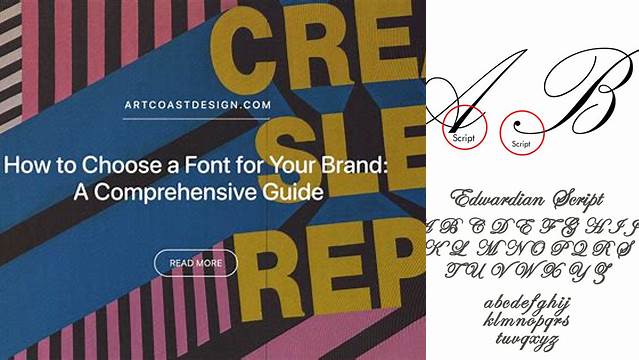
Fonts Scripts: Your Ultimate Guide To Elegant Typography
Choosing the right fonts scripts is crucial for creating visually appealing and engaging content. Whether you're designing a website, crafting marketing materials, or simply looking to enhance your personal projects, the right font can make all the difference. In this comprehensive guide, we'll delve into the world of fonts scripts, exploring their history, different styles, best practices for usage, and how to select the perfect font for your needs.
Understanding Fonts Scripts
Fonts scripts, also known as script fonts, are a type of typeface that mimic the flowing strokes of handwriting. These fonts often evoke a sense of elegance, sophistication, and personal touch. They can be incredibly versatile, suitable for a wide range of applications from wedding invitations to branding materials. However, understanding the nuances of script fonts is essential to using them effectively.
A Brief History of Script Fonts
The history of fonts scripts dates back to the origins of handwriting itself. Early forms of script fonts were developed to replicate the appearance of formal calligraphy. As printing technology evolved, so did the ways in which script fonts were designed and utilized. In the 18th and 19th centuries, script fonts became particularly popular for correspondence and formal documents. Today, digital typography has expanded the possibilities for script fonts, offering a vast array of styles and variations.
Types of Script Fonts
There are numerous types of fonts scripts, each with its unique characteristics and applications. Some of the most common categories include:
- Formal Scripts: These fonts closely resemble traditional calligraphy and are often used for elegant and formal occasions. Think wedding invitations, certificates, and high-end branding.
- Casual Scripts: Casual scripts have a more relaxed and informal feel. They are perfect for projects that need a touch of personality and warmth, such as greeting cards or friendly website headers.
- Brush Scripts: Brush scripts look like they were written with a paintbrush, featuring bold strokes and a textured appearance. They're great for adding an artistic flair to designs.
- Calligraphic Scripts: True to their name, these fonts mirror the art of calligraphy. They're often characterized by intricate details and a sense of timeless beauty.
- Vintage Scripts: These fonts evoke a sense of nostalgia and old-world charm. They're ideal for projects that aim to capture a retro aesthetic.
Key Characteristics of Script Fonts
Several key characteristics define fonts scripts and distinguish them from other font styles:
- Flowing Strokes: Script fonts are designed to mimic the continuous strokes of handwriting, creating a sense of fluidity and connection between letters.
- Elegant Curves: Many script fonts feature elegant curves and swashes, adding to their visual appeal.
- Varied Thickness: The thickness of the strokes can vary, creating a dynamic and visually interesting effect.
- Personal Touch: Script fonts often convey a personal and human touch, making them ideal for projects that require warmth and authenticity.
Choosing the Right Font Script
Selecting the right fonts scripts involves considering various factors, including the project's purpose, target audience, and overall design aesthetic. Here’s a step-by-step guide to help you make the best choice:
1. Define Your Project’s Purpose and Tone
Before diving into font selection, clarify the purpose and tone of your project. Are you designing a logo for a luxury brand, a greeting card for a friend, or a website for a tech startup? The tone you want to convey—formal, casual, elegant, playful—will significantly influence your font choice.
For instance, a formal script font like Great Vibes or Allura might be perfect for wedding invitations or high-end branding. These fonts exude sophistication and elegance. On the other hand, a casual script like Lobster or Pacifico could be more suitable for a friendly, approachable brand or a casual event invitation. Brush scripts like Permanent Marker can add an edgy, artistic vibe to your designs.
2. Consider Readability
While fonts scripts are beautiful, readability is paramount. An overly ornate or intricate script font can be challenging to read, especially in small sizes or large blocks of text. Ensure the font is legible in your intended context. Test it in various sizes and on different backgrounds.
- Avoid using script fonts for body text. They are best reserved for headings, logos, and short phrases.
- Opt for simpler scripts if readability is a concern. Some modern script fonts offer a cleaner, more legible design.
- Ensure sufficient contrast between the font color and the background to enhance readability.
3. Match the Font to Your Brand or Theme
The font should align with your brand’s identity or the overall theme of your project. A vintage script might be perfect for a retro-themed event or a brand with a classic aesthetic. A modern, minimalist script could be ideal for a contemporary brand. Consider the emotional associations of the font. Does it feel elegant, playful, serious, or whimsical?
Fonts scripts are a powerful design tool that can add elegance, personality, and a personal touch to your projects. By understanding the different types of script fonts, considering readability, and following best practices for usage, you can effectively incorporate script fonts into your designs. Whether you're designing a logo, creating marketing materials, or enhancing your personal projects, the right script font can make all the difference. So, go ahead and explore the vast world of script fonts and discover the perfect typeface to bring your vision to life.